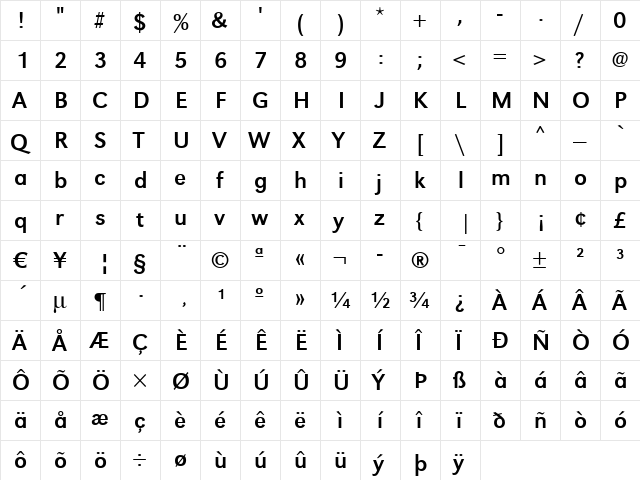
TomBecker Regular
TomBecker takes a measured approach to typography — its balanced proportions and neutral character make it a reliable workhorse for both digital and print work.